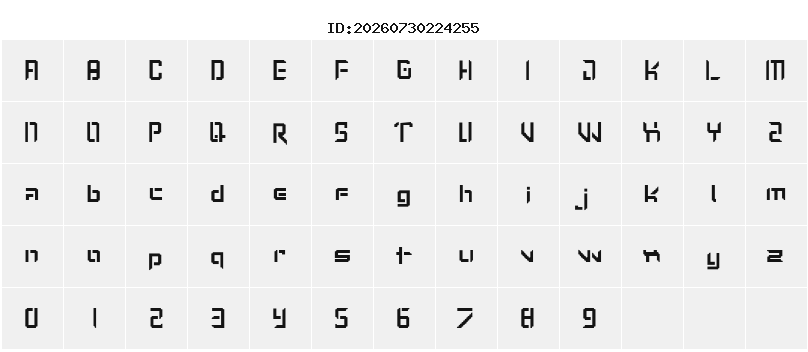
Lost Passenger Preview
• Font Name: Lost Passenger
• Font Style: Track#032
• Font ID: MR.FISK: Lost Passenger: 1999
• Full Font Name: Lost Passenger
• Description: Thiz iz the pure pixel-font. Its just so cool.. hehehee
Lost Passenger.ttf is a modern, elegant sans-serif font designed for ultimate readability and visual harmony. Perfect for branding, headlines, web design, and print materials.